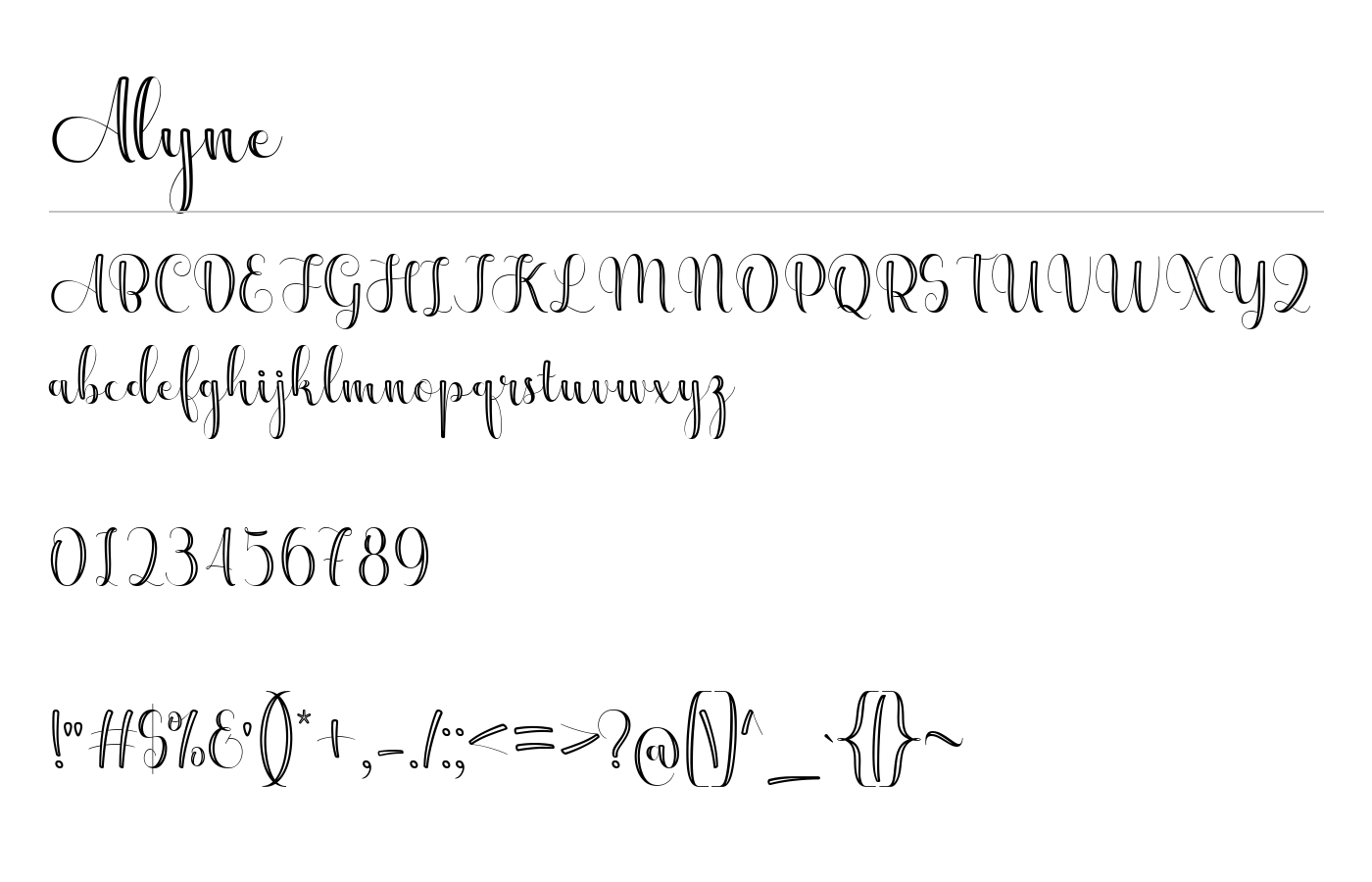
Alyne is an elegant, thin script font with delicate, flowing strokes that create a sophisticated and graceful appearance. Its tall, slender letterforms and ornate swashes make it ideal for luxury branding, wedding invitations, and stylish headlines where a refined, romantic feel is desired. This font works best in decorative settings where its fine details can be appreciated without compromising readability.
Alyne Font
About Alyne Font
| Font family | Alyne Font |
| Designer | Kelik; Dani; Situjuh Nazara |